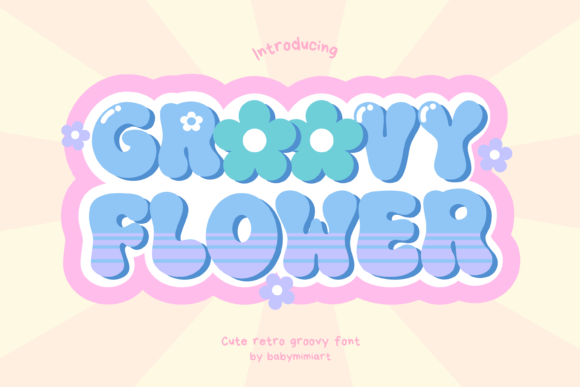
Download Groovy Flower Font for free! Created by Babymimiart and published by Julian Coffman, this display font family is perfect for adding a unique touch to your designs.
Groovy Flower is a cute and groovy retro font that captures the playful charm of the ’60s and ’70s. With its whimsical curves and funky vibes, it adds a burst of nostalgic flower power to your projects. Perfect for vintage-inspired posters, retro branding, or any design in need of a groovy twist, this font infuses your creations with a vibrant and free-spirited energy from the past.